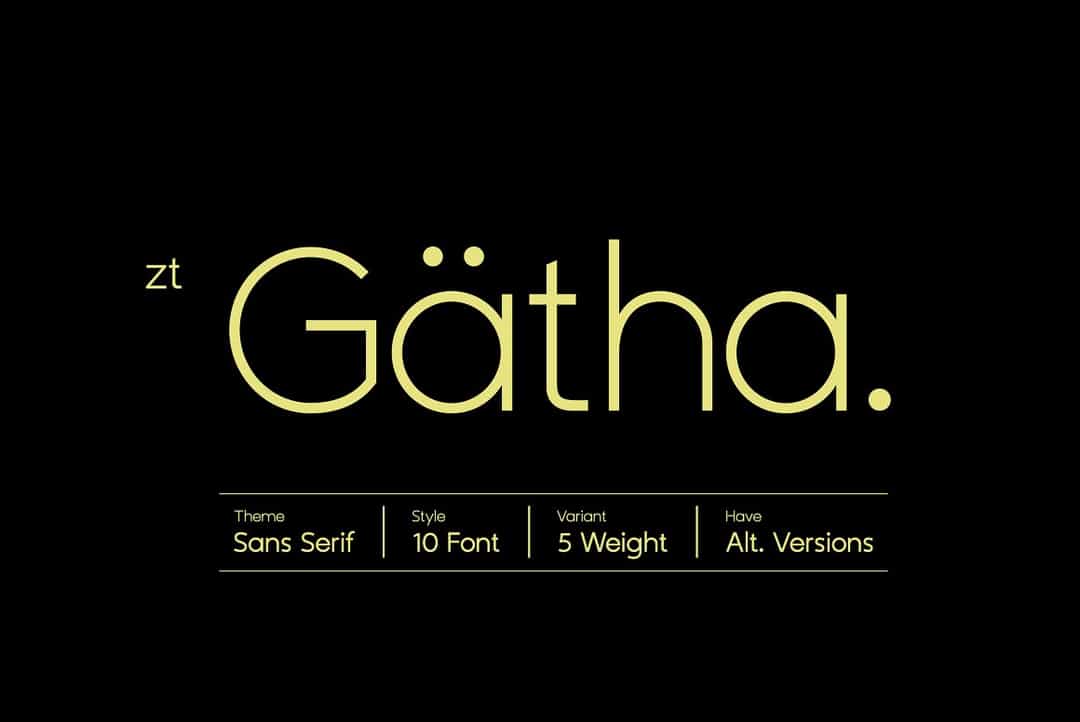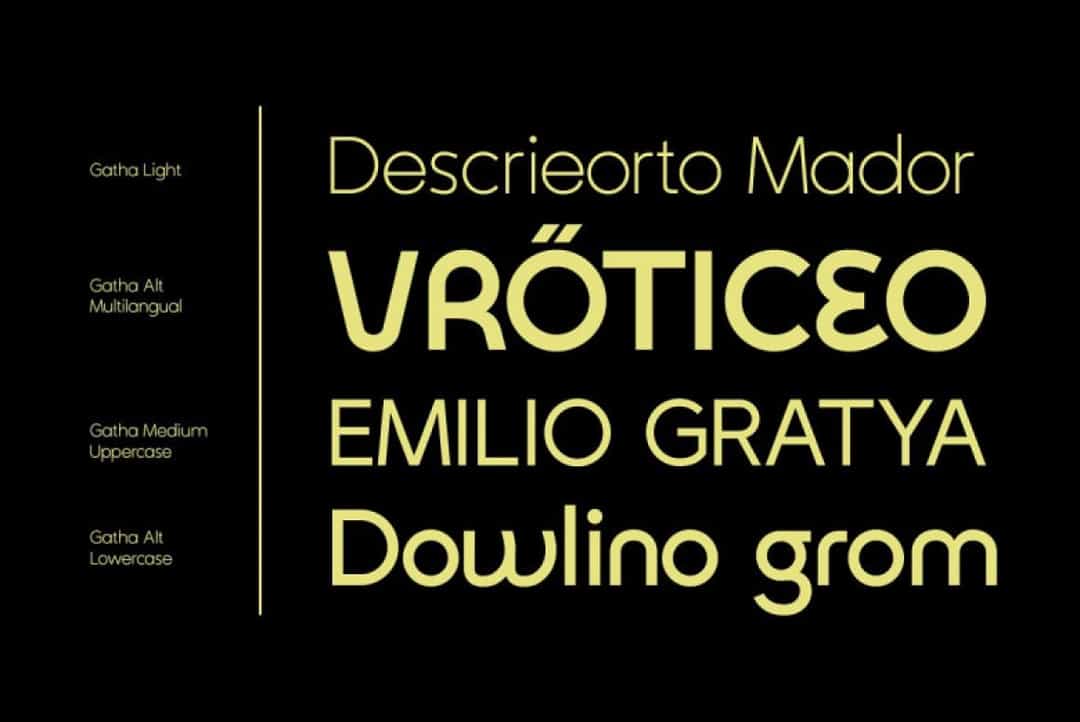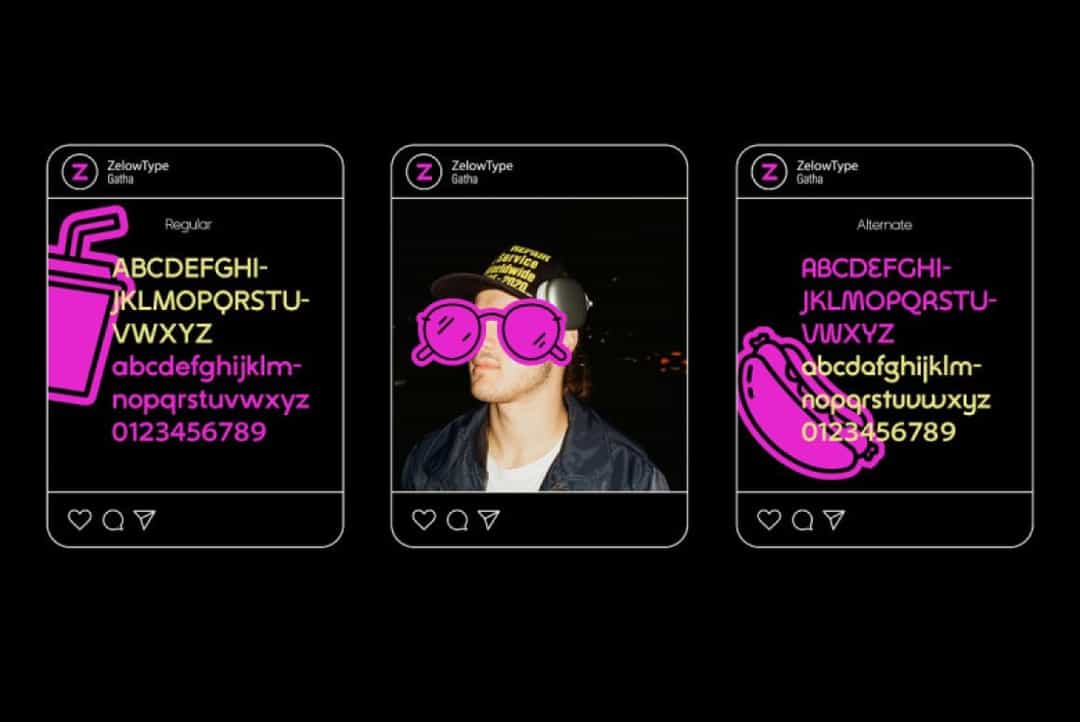
ZT Gatha is an extension of “Gatha Duo family of fonts” that emphasizes more comprehensive variants of sans serif fonts. This font comes in two variations; an ordinary sans font and another which reduces edges while each letter features smooth curving grooves for greater reading comfort.